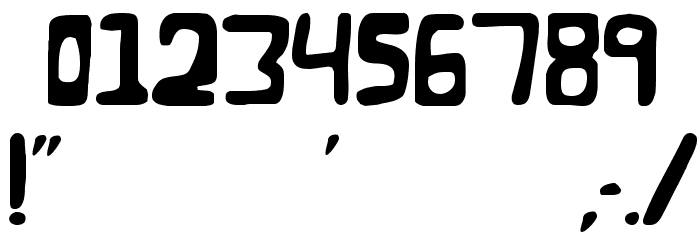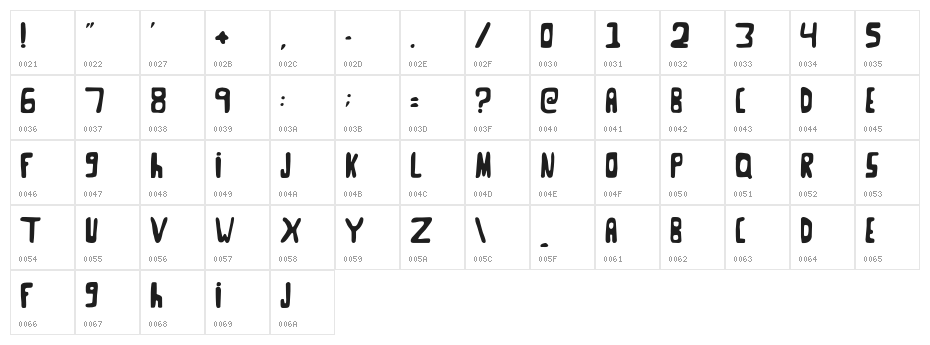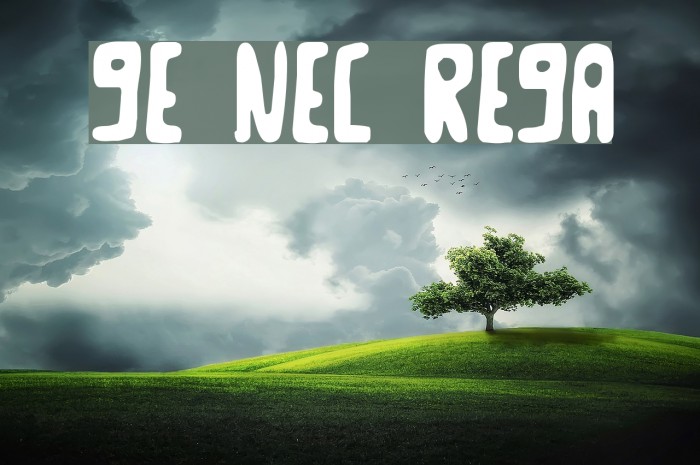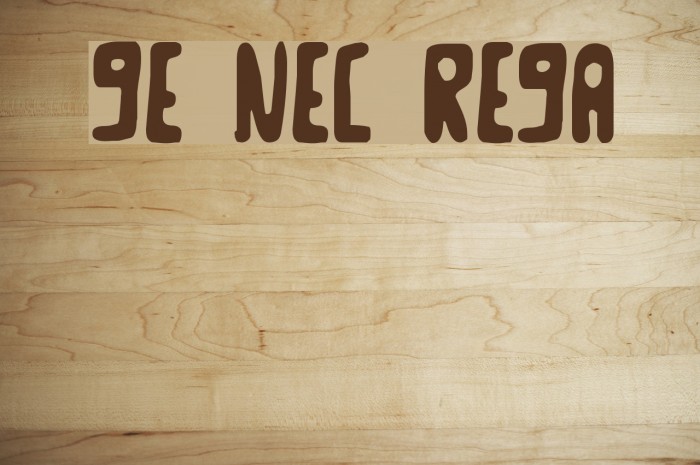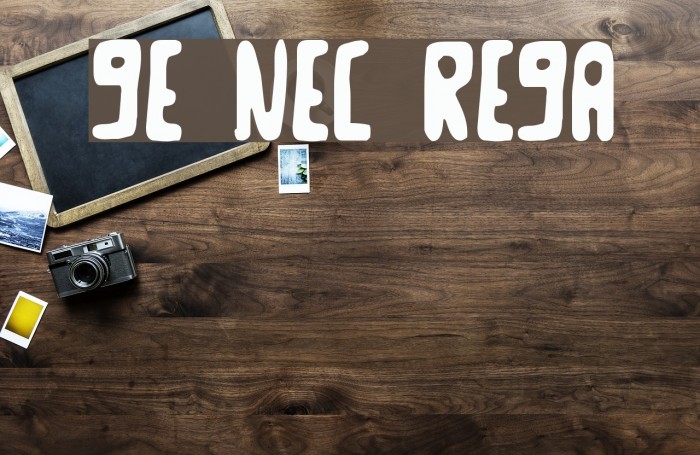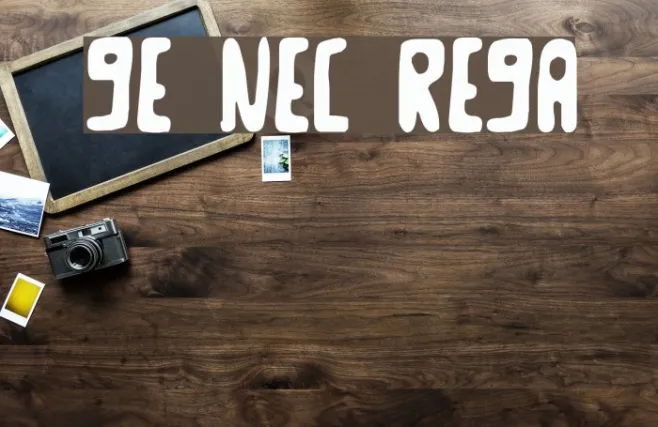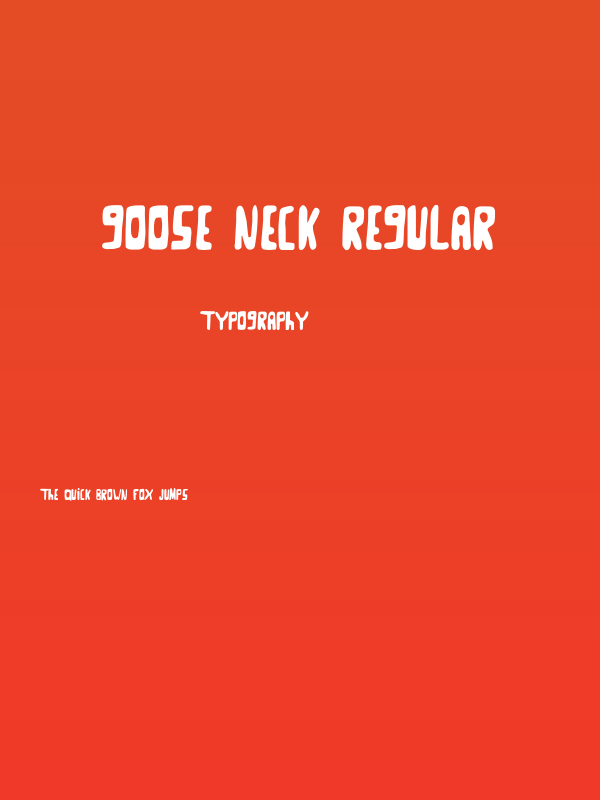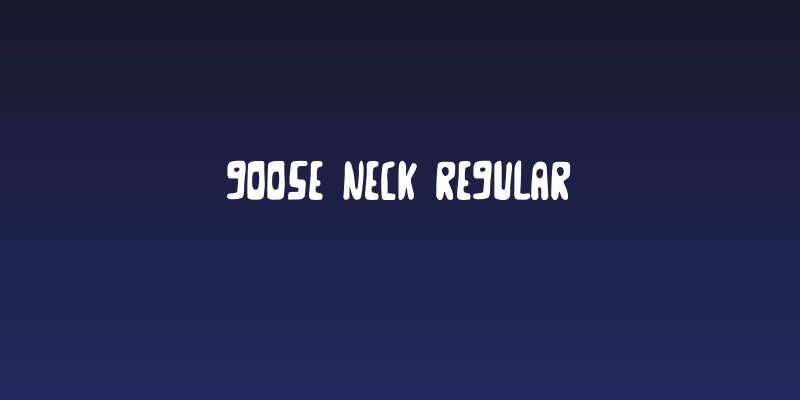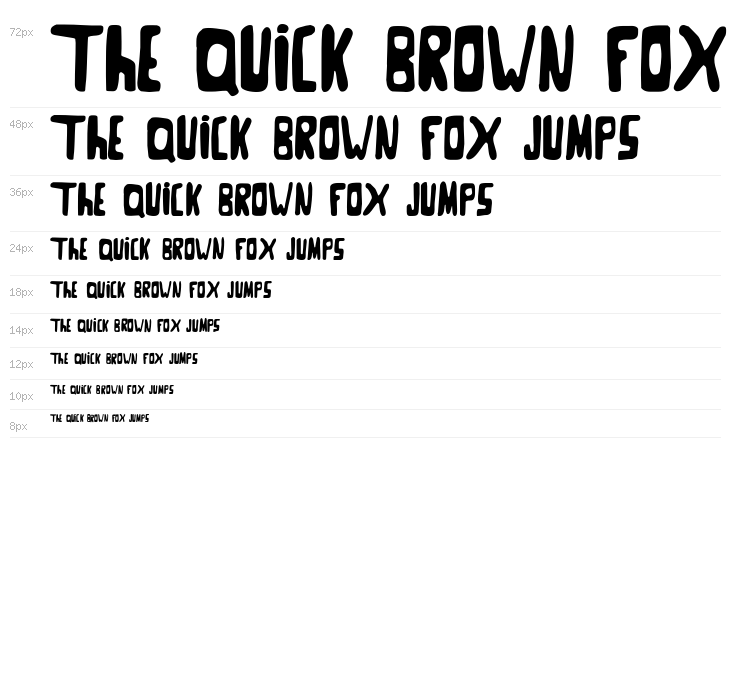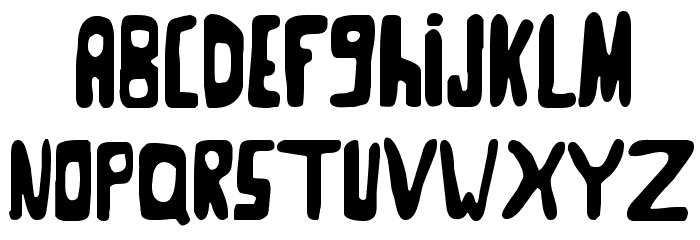
Goose Neck Regular Font
Goose Neck Regular Description
This font features a bold and playful design with rounded edges and a slightly irregular shape, giving it a hand-drawn appearance. The characters are thick and substantial, with a quirky, cartoon-like style that adds a sense of fun and creativity. The uppercase and lowercase letters maintain a consistent weight, while the numbers and special characters complement the overall aesthetic. Its unique style makes it stand out, perfect for projects that require a touch of whimsy and personality.
| Overall Style | Playful, Quirky |
| Use Case | Logos, Posters, Headlines |
| Proposed Projects | Ideal for children's books, comic strips, playful branding, and creative posters. |